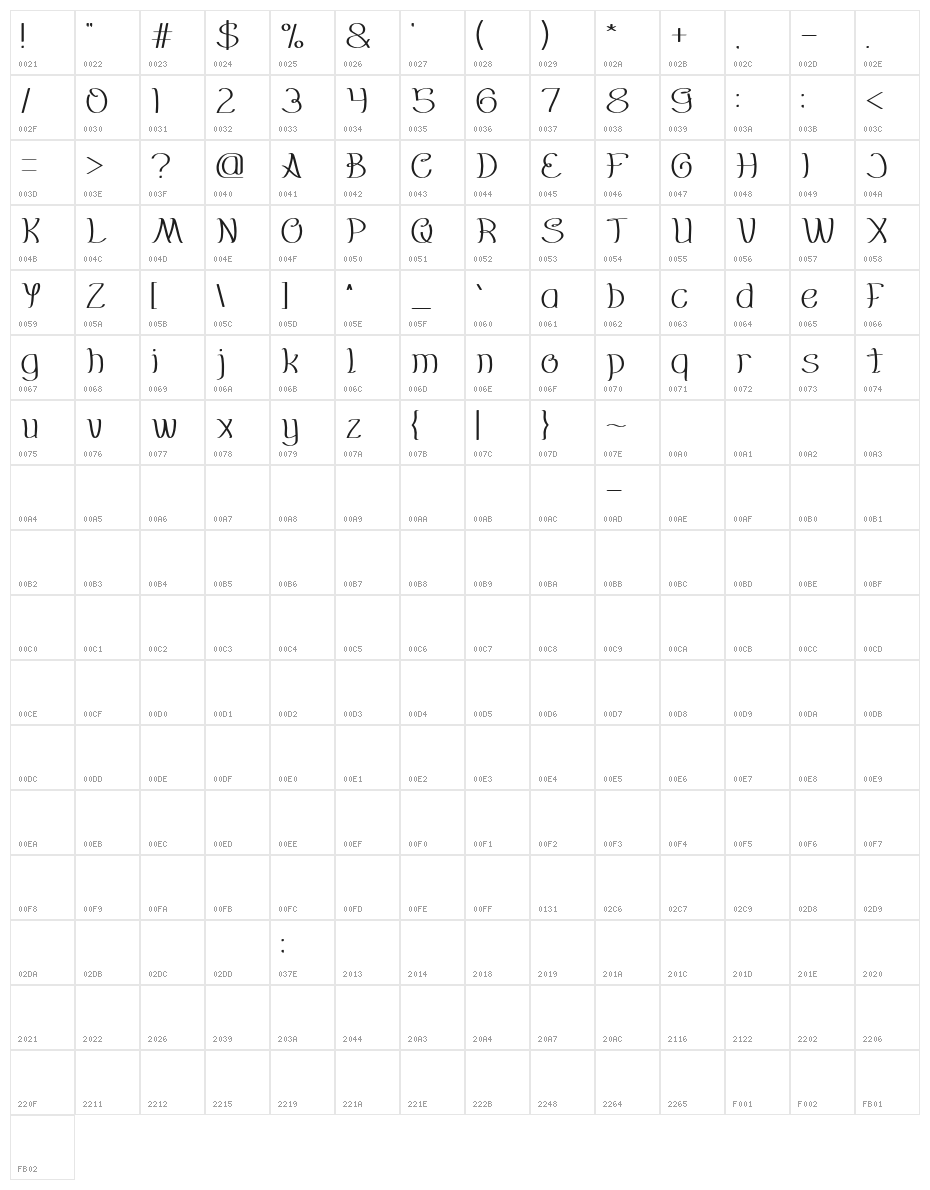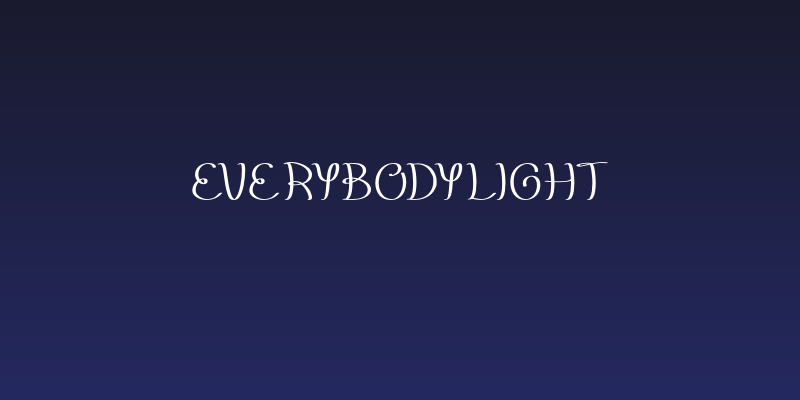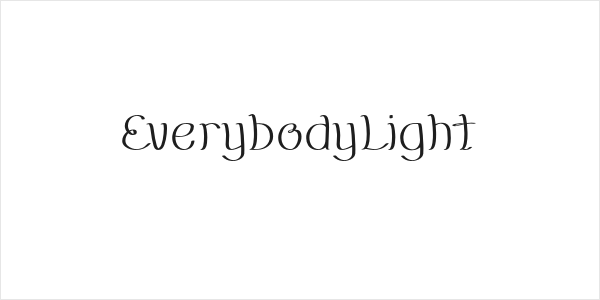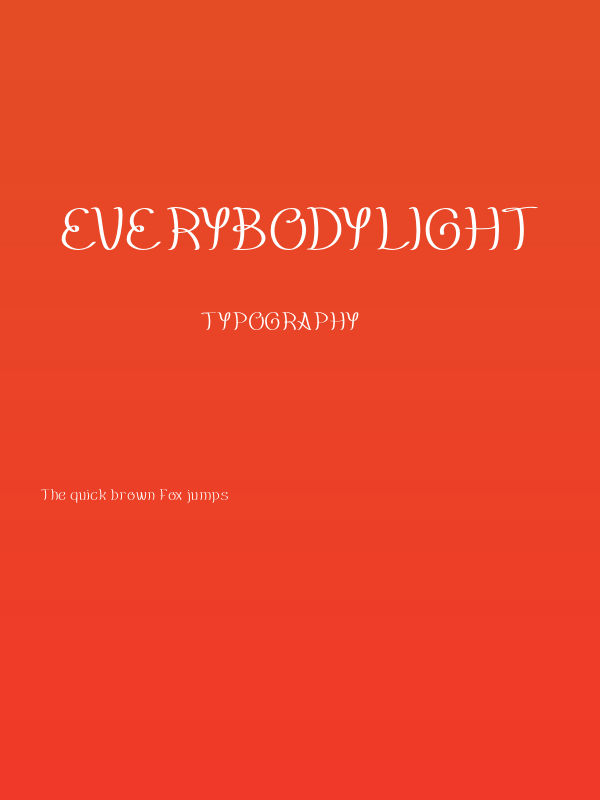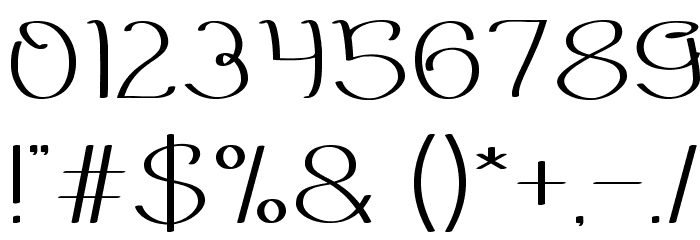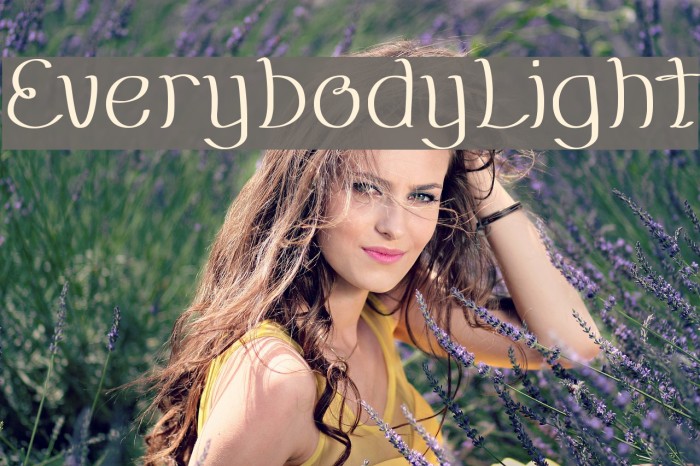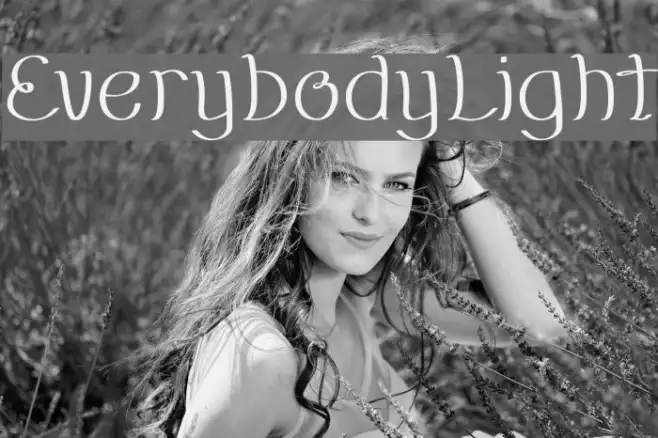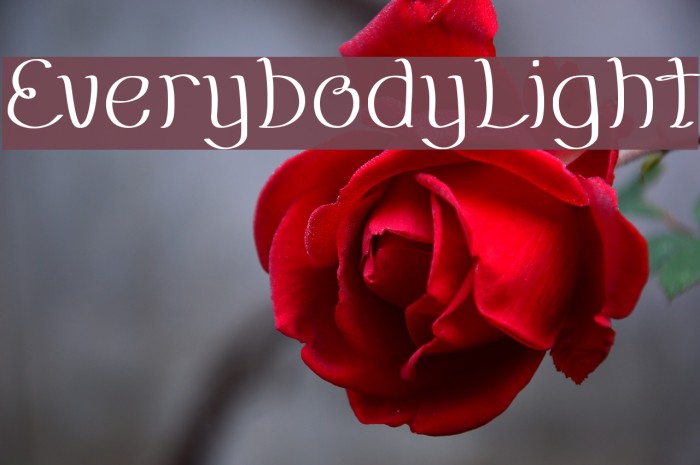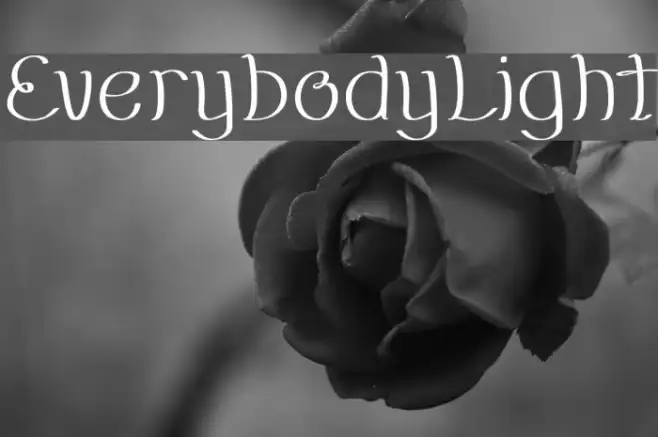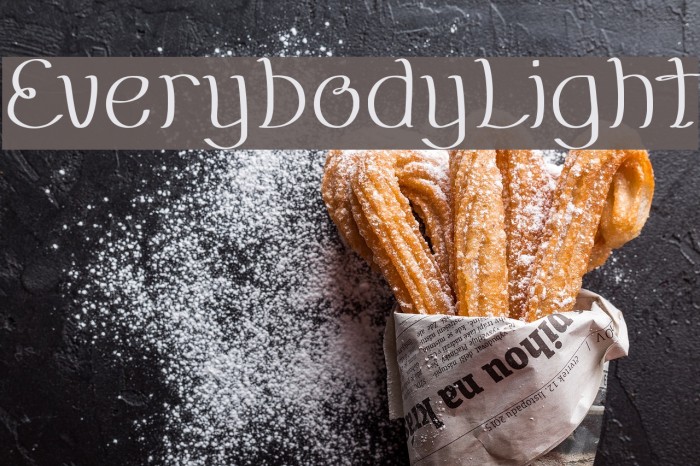
EverybodyLight Font
EverybodyLight Description
This font features a playful and whimsical design with a handwritten style. The characters have a unique, flowing appearance with slight curls and loops, giving it a lively and informal feel. The strokes are consistent in thickness, providing a uniform look across all characters. The uppercase letters are slightly taller than the lowercase, maintaining a balanced proportion. The numerals and special characters are designed to match the overall style, ensuring cohesion throughout. This font is perfect for projects that require a touch of personality and creativity.
| Proposed Projects | Ideal for greeting cards, children's books, playful branding, and creative invitations. |